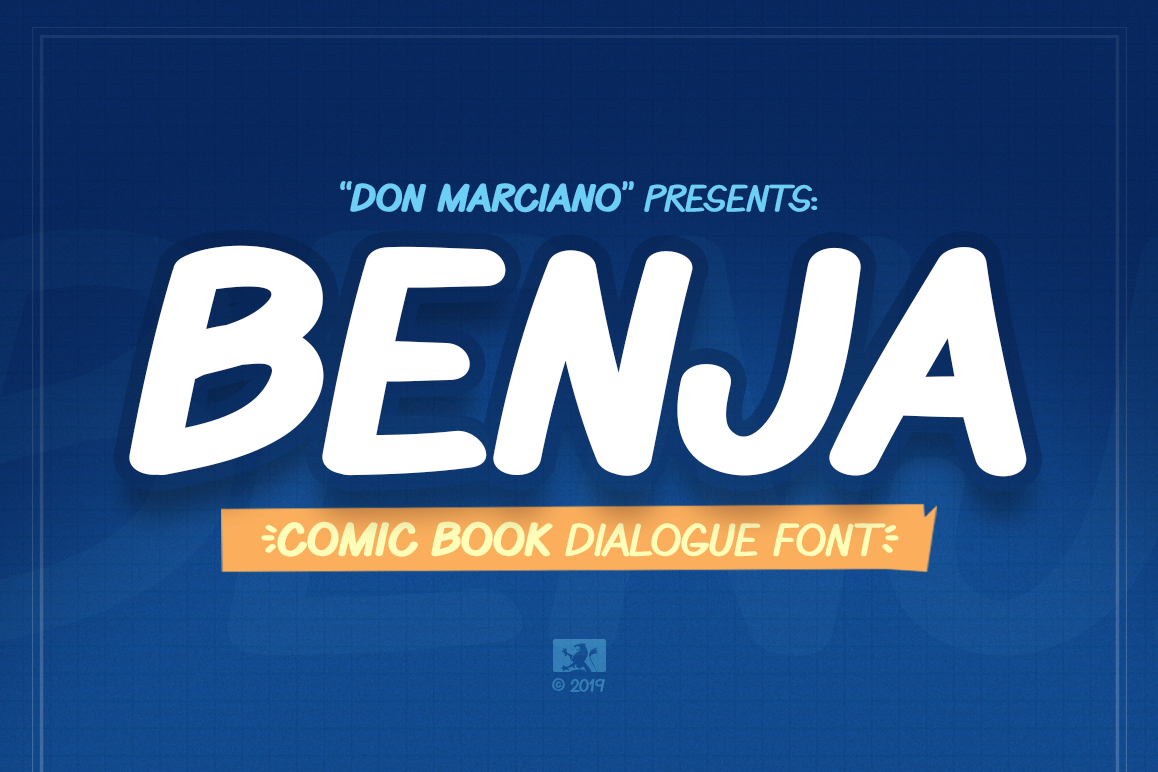
Benja - Comicbook
Benja is a typeface created for comics dialogue, design for my project of web comics series called: “Pasaje Mandrill”, made with love and care, comes in two styles, Regular and Bold, which together create a more dynamic flow within the dialogue bubbles, from the pencil lines, colors and dialogue layers of a fun and endearing comic series, comes a simple yet stylistic typeface that wants to tell the story, you want to tell. A 2 .OTF files format with a total count of 222 glyphs each, an all caps font with no variants that includes all numbers and punctuation. Enjoy!